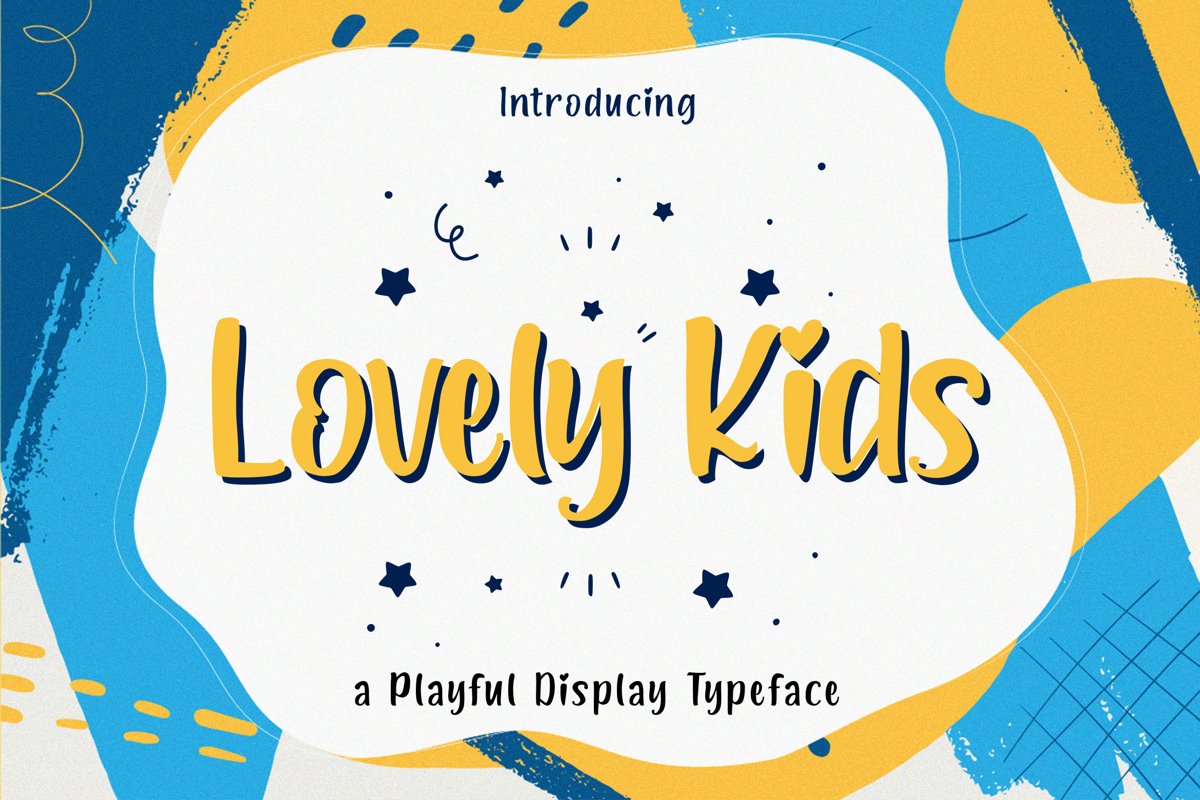
Lovely Kids - Playful Font
Lovely Kids
Introducing Lovely Kids - Playful Font
Lovely Kids is a playful font that specially crafted for children, Boys, Kindergarten, Birthday, Kid, Cartoon, and Comic purposes.
The Lovely Kids cheerful font contains Modern, Elegant, Creative, Professional and Unique Concept.